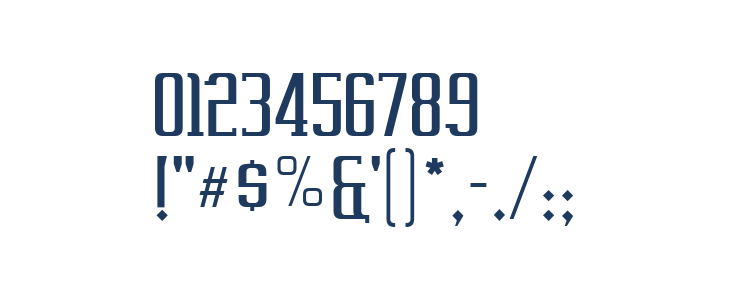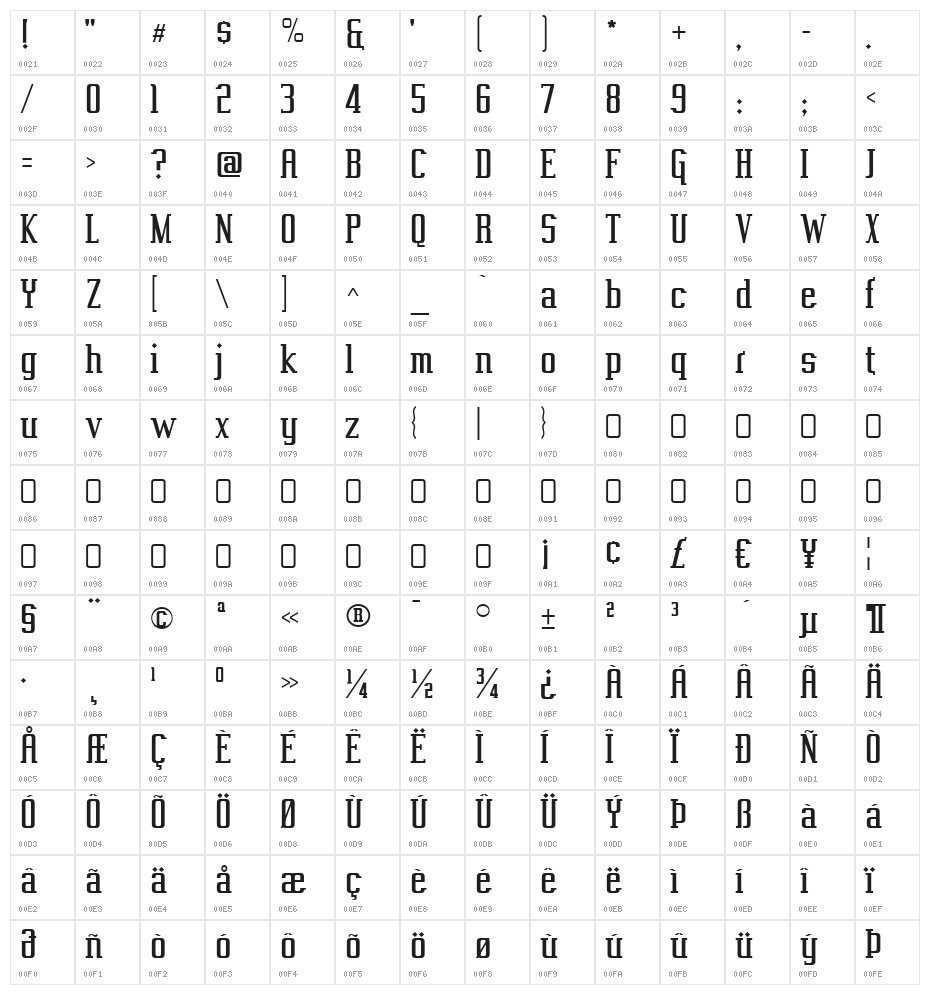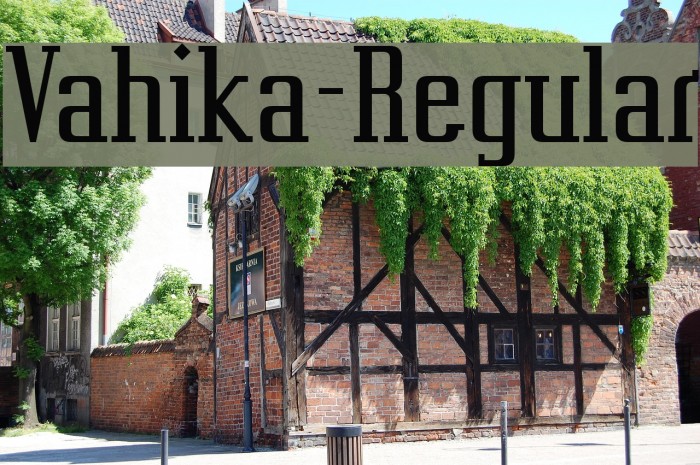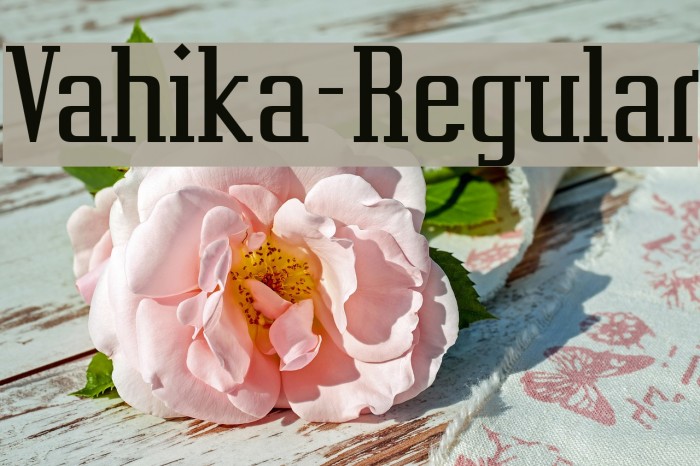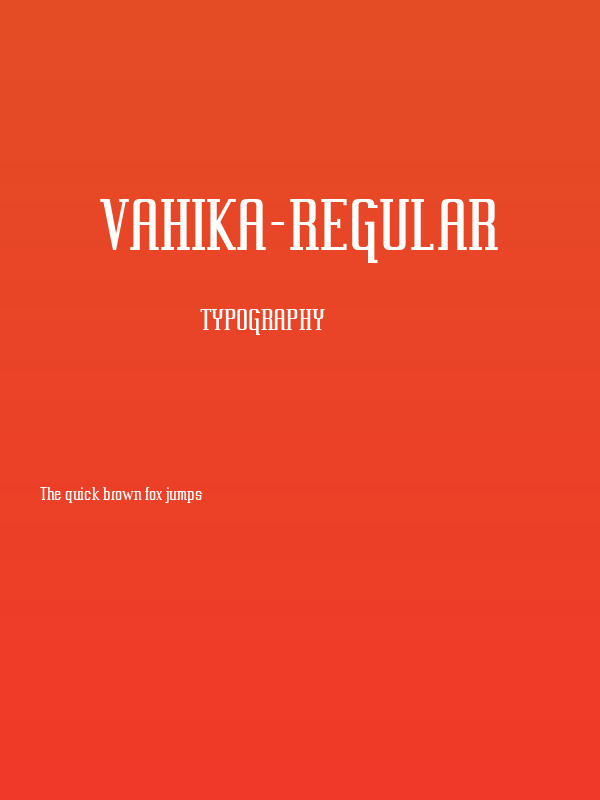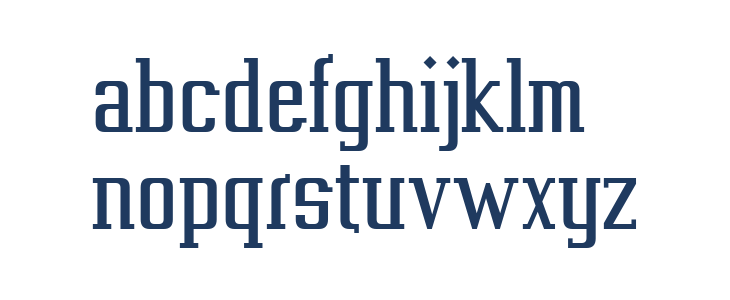
Vahika-Regular Font
Vahika-Regular Description
This font exhibits a bold and structured design with a modern twist. The uppercase letters are tall and narrow, featuring sharp edges and distinct serifs that give it a strong presence. The lowercase letters maintain a consistent style, with a slightly more rounded approach that complements the uppercase. Numbers are equally bold, ensuring readability and uniformity across different uses. Special characters are designed with the same attention to detail, making them stand out while maintaining harmony with the rest of the font. Overall, this typeface combines traditional serif elements with a contemporary flair, making it versatile for various applications.
| Use Case | Headlines, Logos, Editorial design |
| Proposed Projects | Ideal for branding, editorial design, posters, and headlines where a strong, modern serif is needed. |